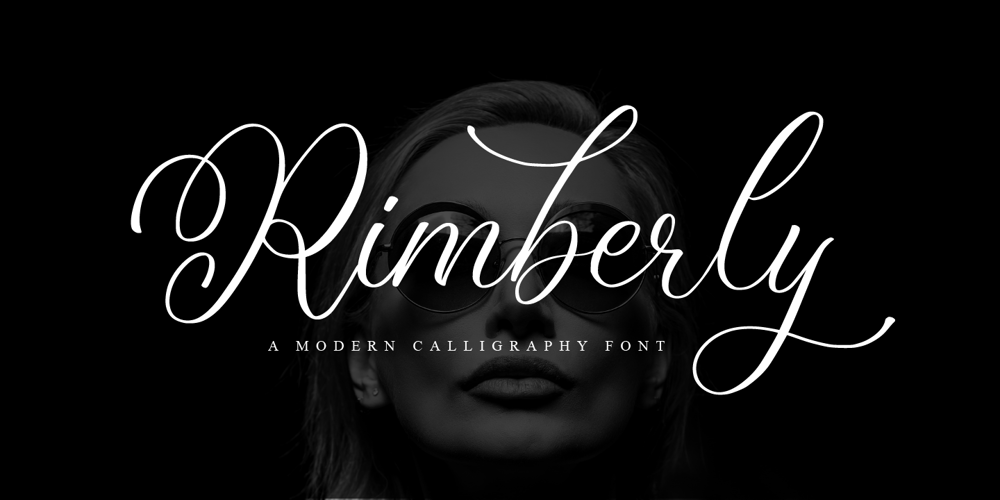
Rimberly
Rimberly font
Rimberly Font Family was designed by Hayinah and published by Rockboys Studio. Rimberly contains 1 styles and family package options. Rimberly is a beautifully crafted calligraphy font that exudes an air of sophistication and grace. Its design features fluid, interconnected strokes and elegant flourishes that capture the essence of traditional hand-lettering with a modern twist. Each character is carefully shaped to create a cohesive, flowing script that is both stylish and legible. Ideal for invitations, personal stationery, and elegant branding projects, Rimberly’s refined curves and artistic details lend a sense of timeless charm and artistic flair, making it perfect for adding a personal and distinguished touch to any design.